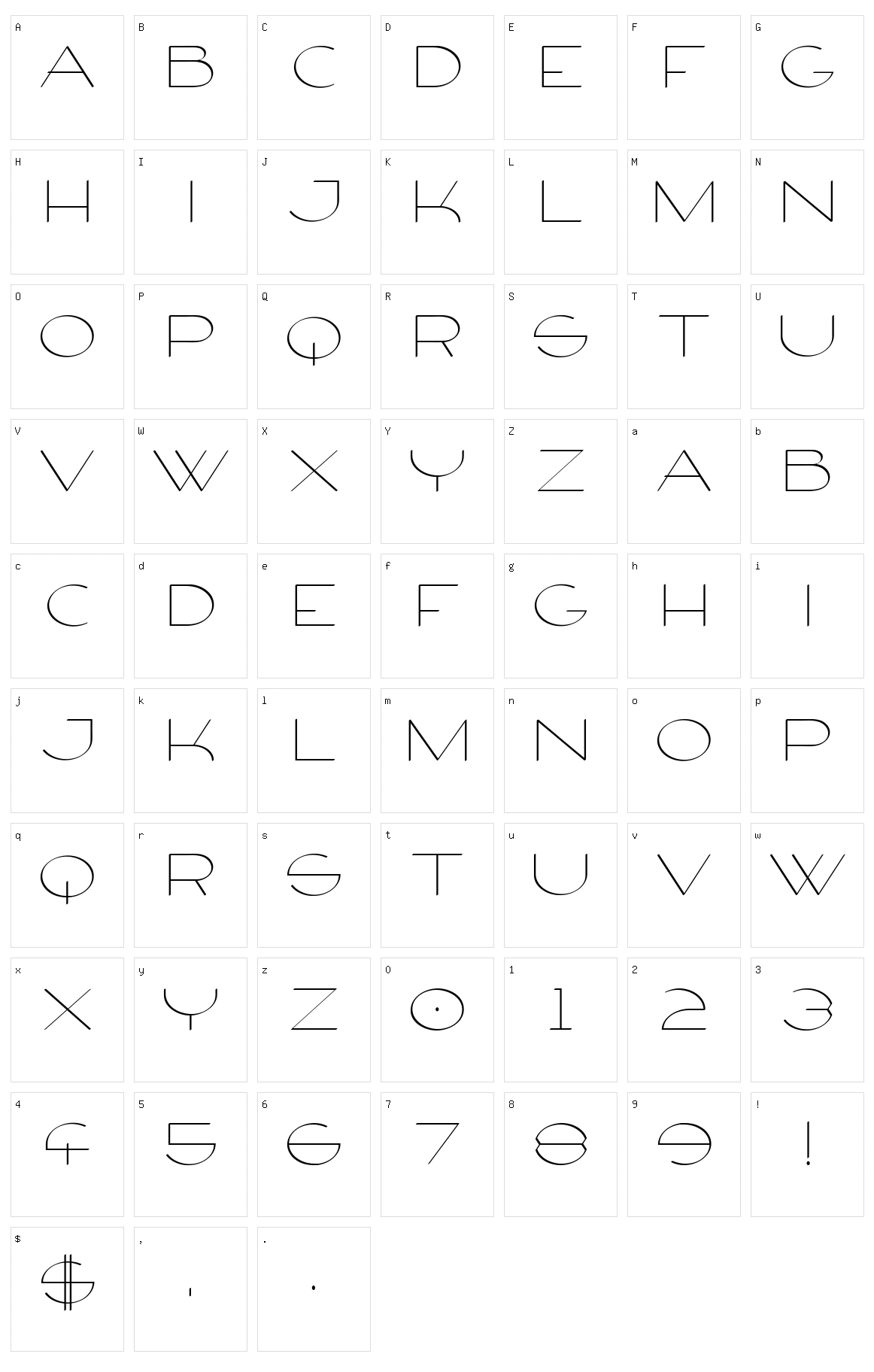
The free font Firty is carefully designed by Dominik Krotscheck, showcasing a thoughtful balance of creativity and usability and falls under the Sans serif font style. When you download the ZIP file, it contains only 19.74 KB of font files, making it lightweight and quick to download. Please review the license details below to understand permitted usage and distribution rights. If license information is not available, we recommend using this font for personal projects only or contacting the author directly for commercial usage permissions.